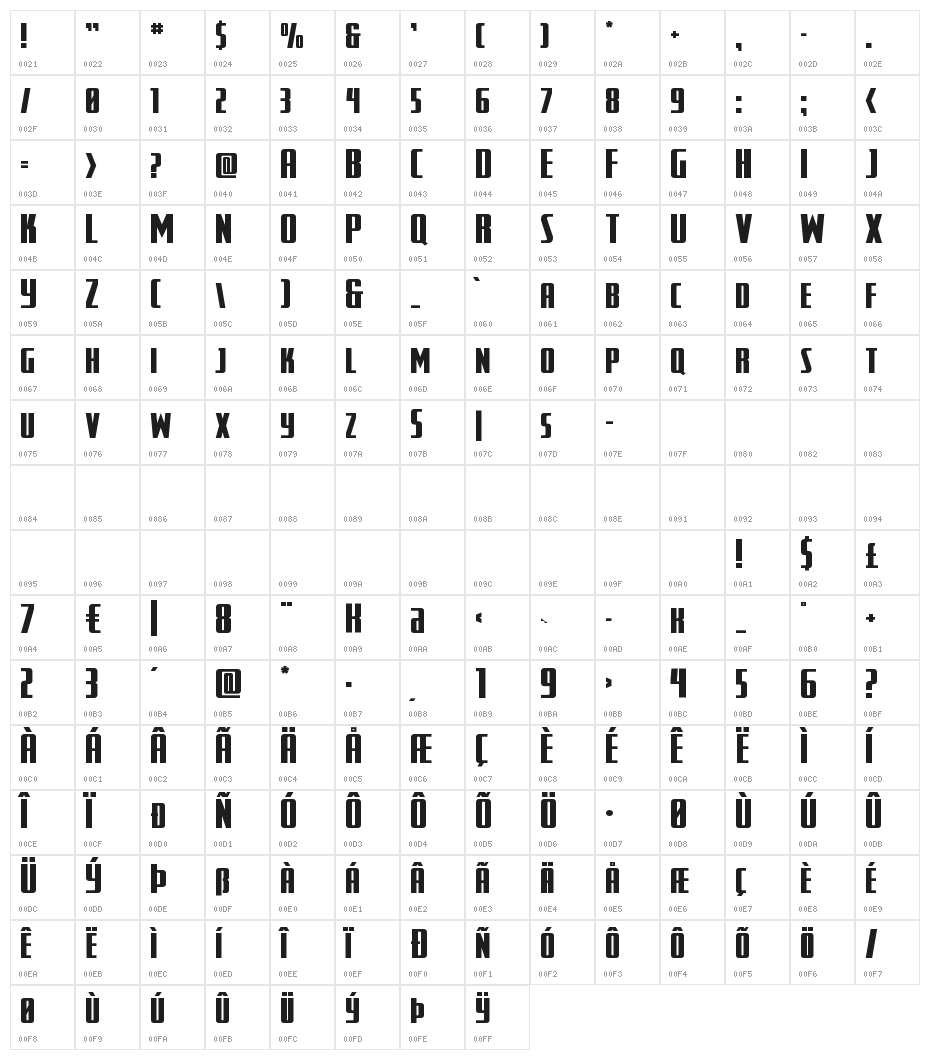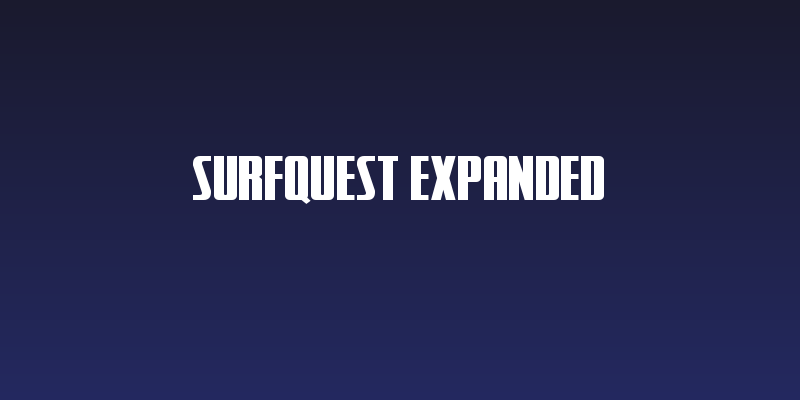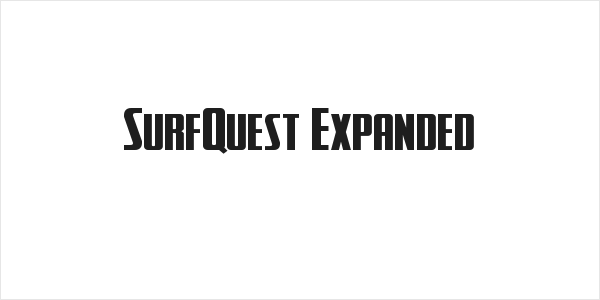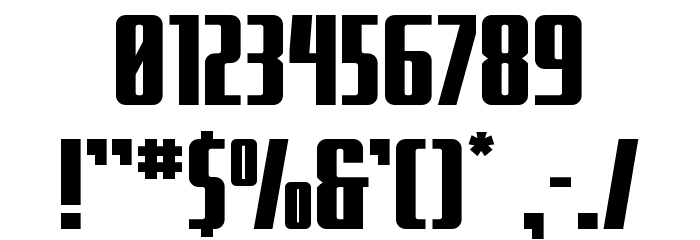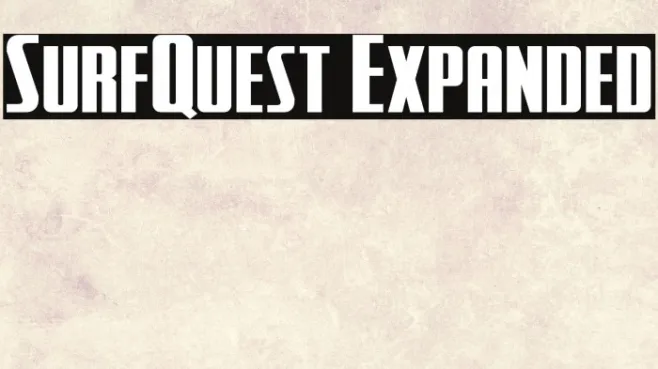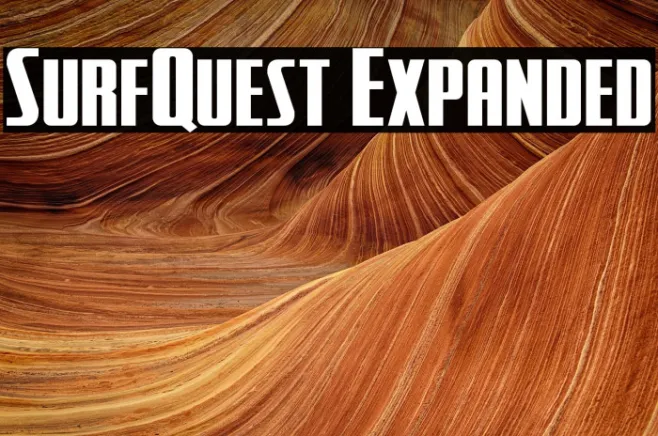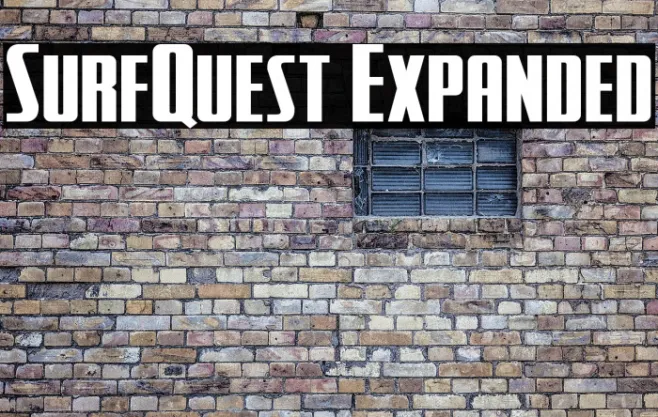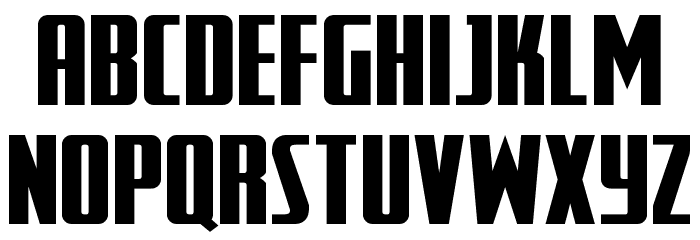
SurfQuest Expanded Font
SurfQuest Expanded Description
This font features a bold and striking design with a strong presence, characterized by its expanded width and geometric shapes. The uppercase letters are particularly prominent, with sharp angles and a modern aesthetic that commands attention. The numbers and special characters maintain the same boldness, ensuring consistency across all elements. This font is ideal for making a statement, with its high contrast and wide character spacing that enhances readability while maintaining a unique style.